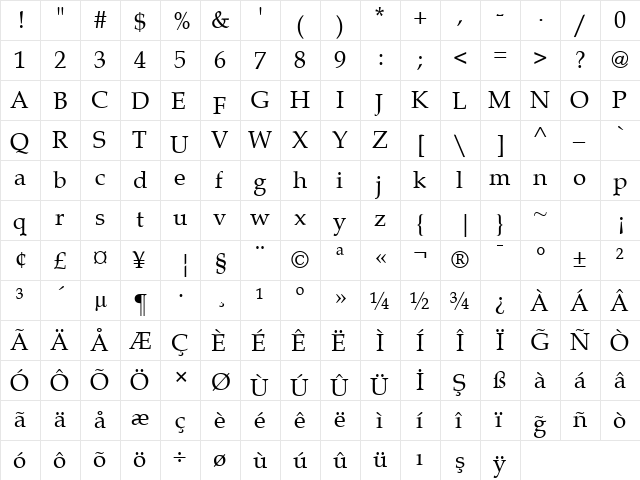
TR Book Antiqua Regular
Design Context for TR Book Antiqua Typeface
TR Book Antiqua takes a measured approach to typography — its balanced proportions and neutral character make it a reliable workhorse for both digital and print work.
Pro Tip: Use TR Book Antiqua in both headline and body roles to test its range before committing to a single application.